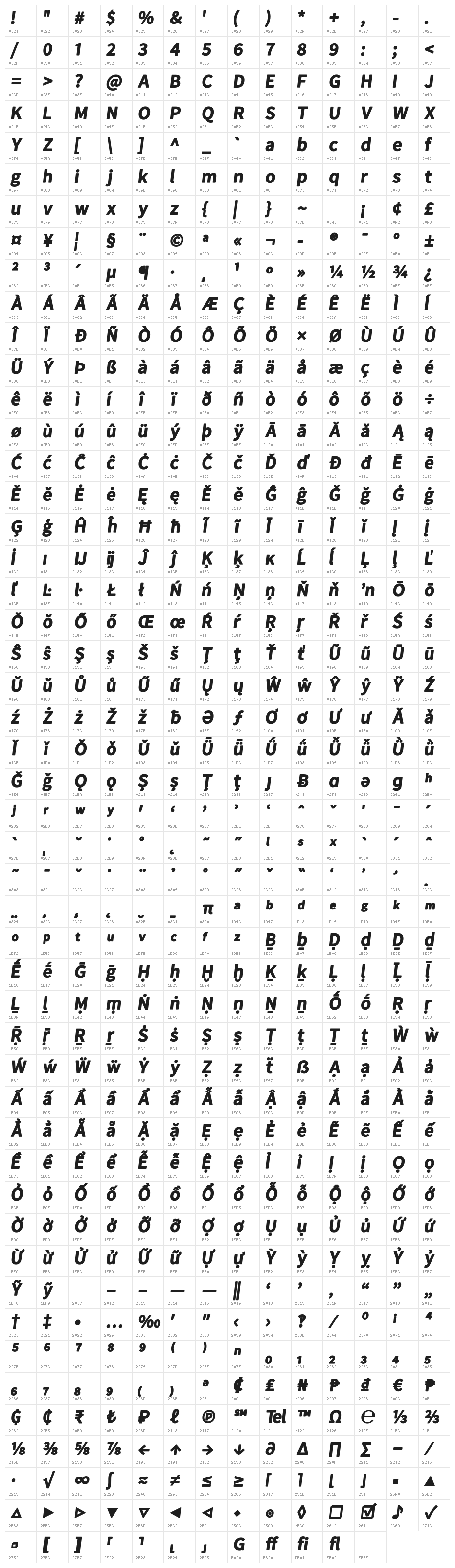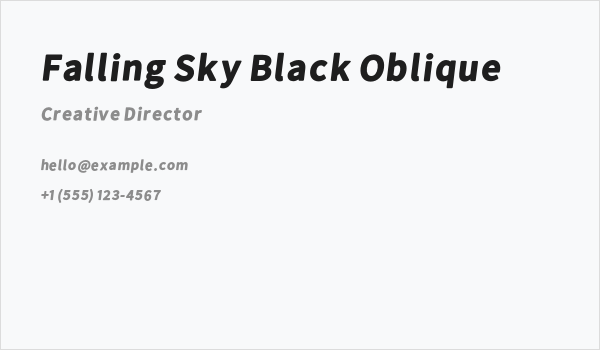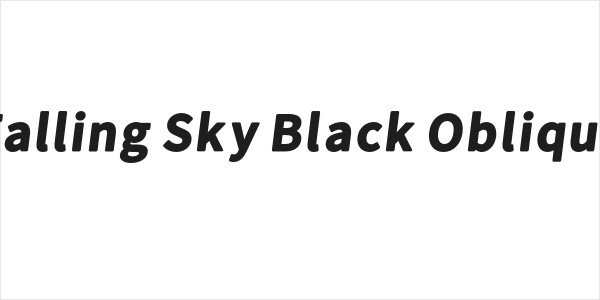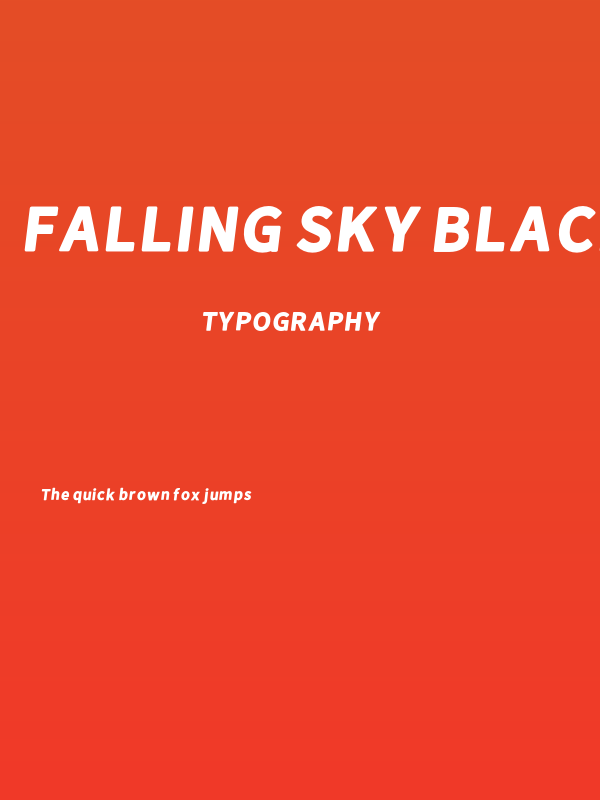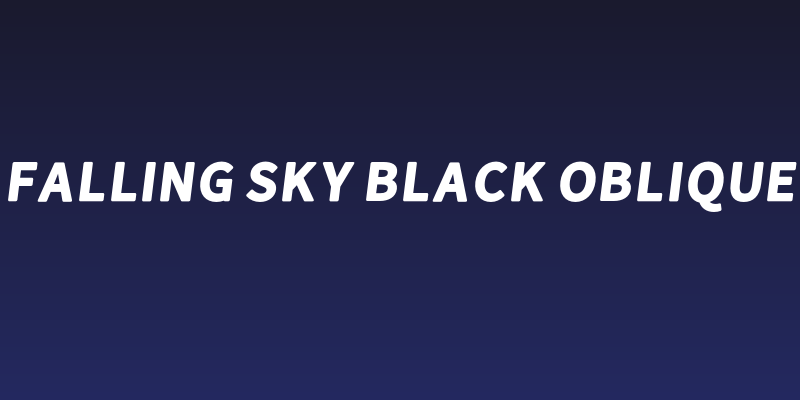
Falling Sky Black Oblique Font
Falling Sky Black Oblique Description
This font features a bold and oblique style with a modern and dynamic appearance. The uppercase and lowercase letters are designed with a consistent slant, giving the text a sense of motion and energy. The characters are thick and robust, providing a strong visual impact. The numerals and special characters maintain the same boldness and slant, ensuring uniformity across all text elements. The overall design is clean and straightforward, making it suitable for attention-grabbing headlines and titles.
| Use Case | Headlines, Logos, Advertising |
| Proposed Projects | Ideal for use in advertising, branding, and headlines where a strong and modern impression is desired. |